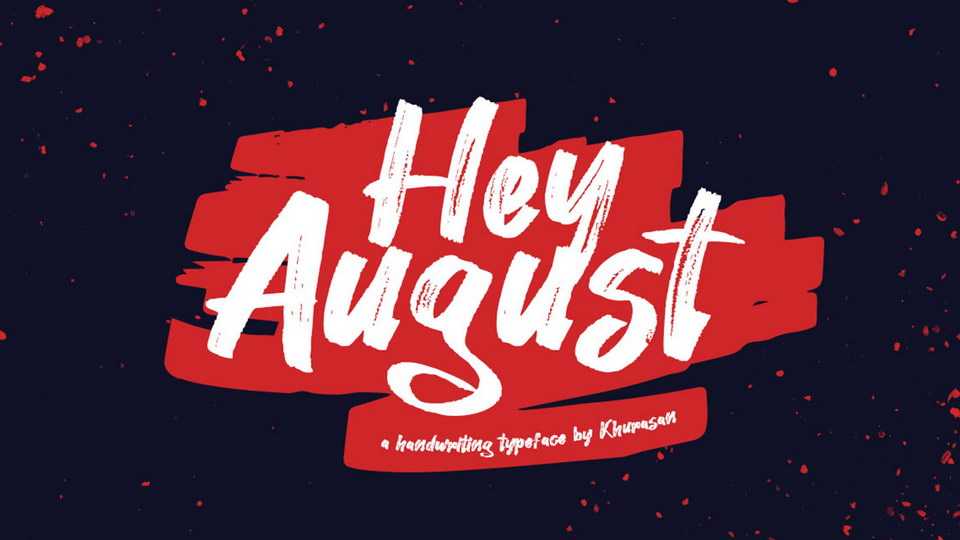
Download Hey August font, a energetic brush painted typeface with a natural texture. Hey August font is perfect for posters, flyers and headlines, t-shirts and apparel, branding, packaging, social media and more.